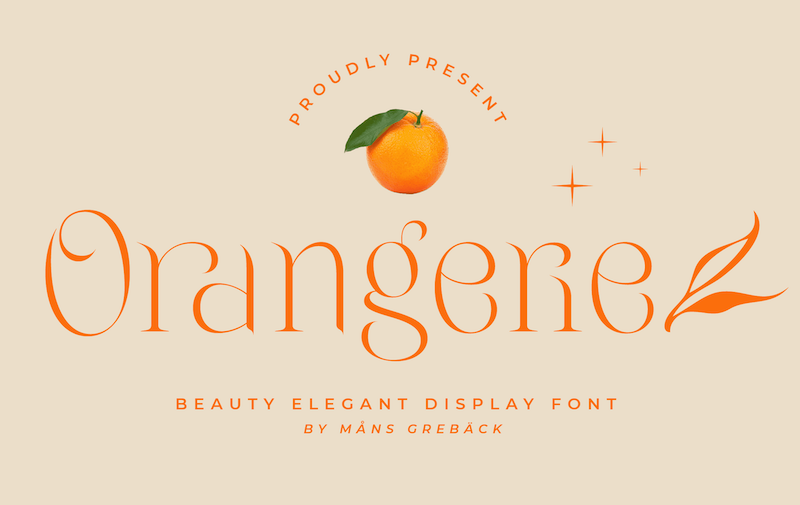
NOTE: This font is for PERSONAL USE ONLY! To purchase a commercial license, visit: http://mn.sg/orangerie Orangerie is a soft, delicate, and beautiful typeface that captures the essence of fashion, sweetness, and nature. Its flowing, thin lines evoke a sense of calm and loveliness, making it the perfect choice for romantic art, professional stationary, and light-hearted projects alike. Use character � to make decorative nature element such as leaves. Use multiple for different versions. Example: Sweet����Morning (Download required.) For questions, please visit www.mansgreback.com/faq |